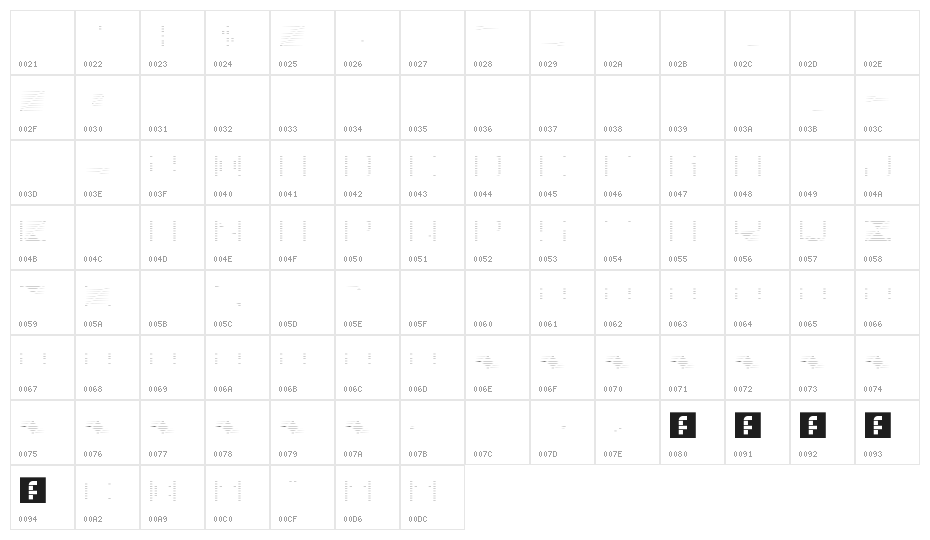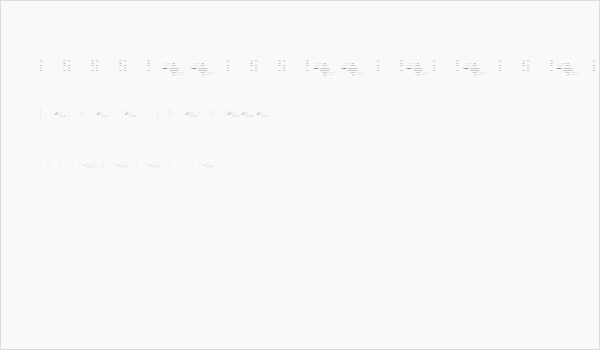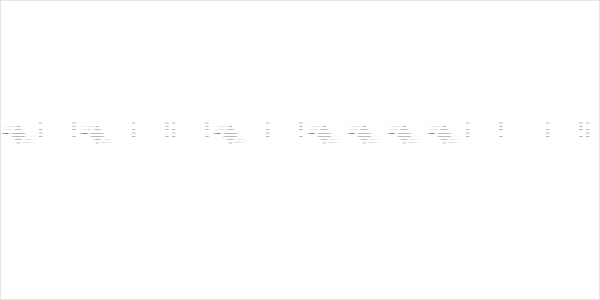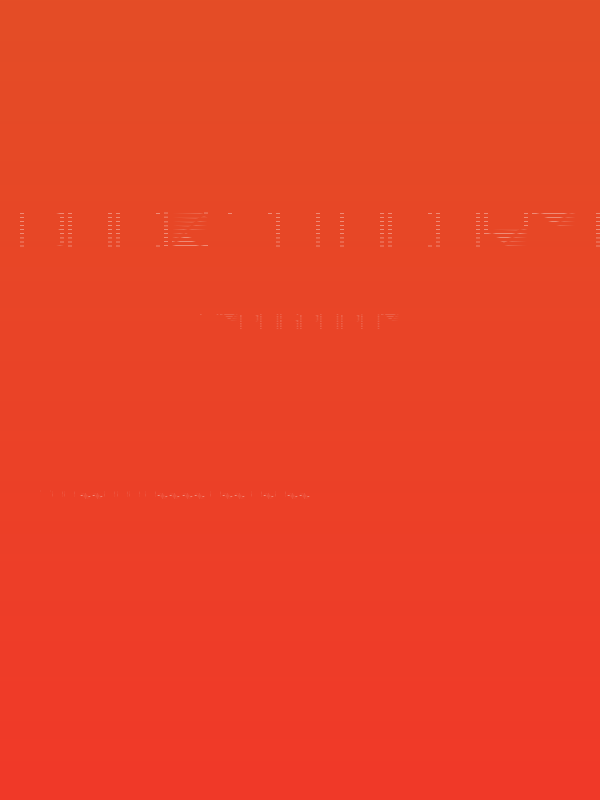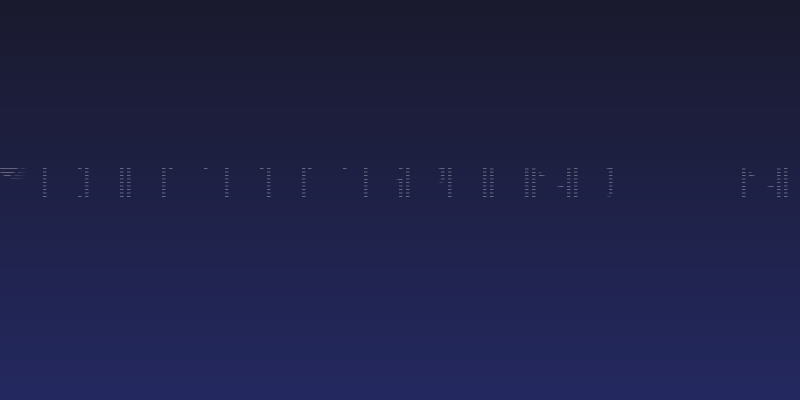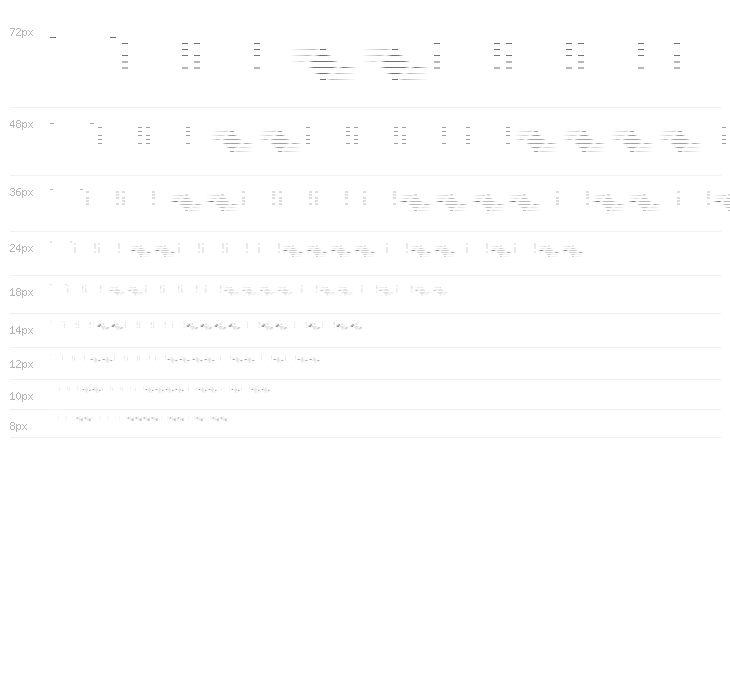
back to heavy coat fat ground_line-sh Regular Description
This font features a unique design where each character is composed of horizontal lines, creating a striped effect. The letters and numbers are constructed with consistent line spacing, giving them a modern and abstract appearance. The font maintains a uniform height across all characters, ensuring a cohesive look. The special characters are also designed with the same linear pattern, making them blend seamlessly with the rest of the set. This font is ideal for projects that require a futuristic or digital aesthetic, as its linear design evokes a sense of technology and innovation.
| Proposed Projects | Ideal for tech-themed designs, digital art, futuristic branding, and modern posters. |